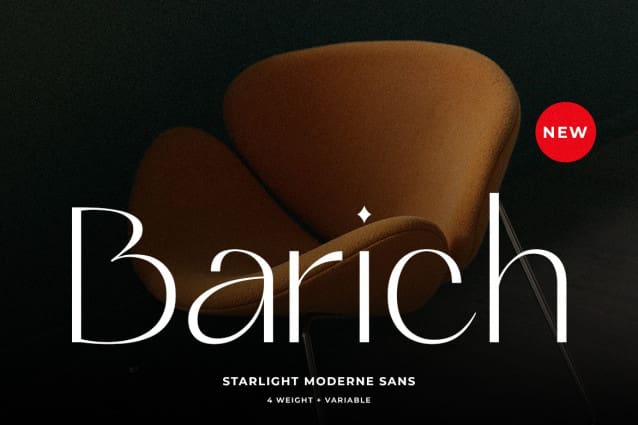
Barich Font
Barich Font – Charming appearance and beauty in every shape, making your design look modern and elegant. Suitable for logo design, posters, magazines, websites and more.